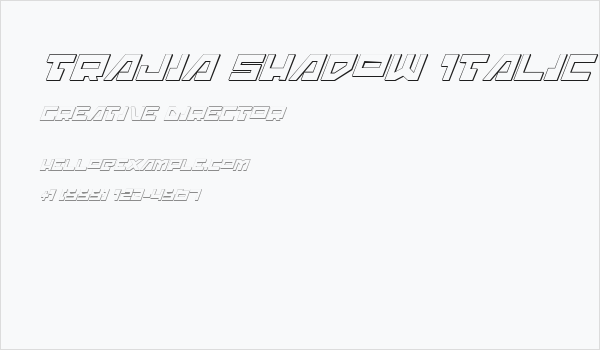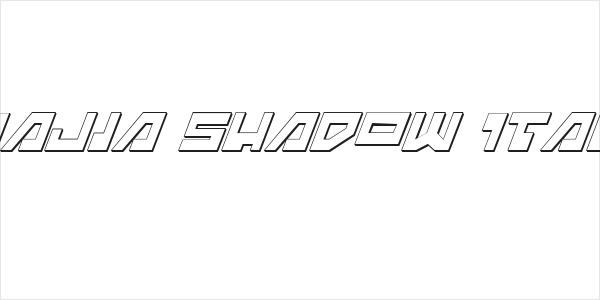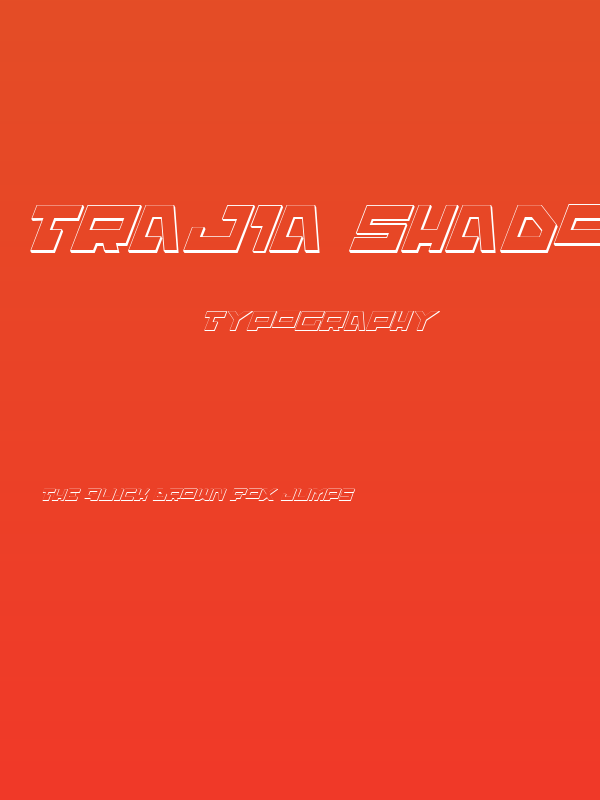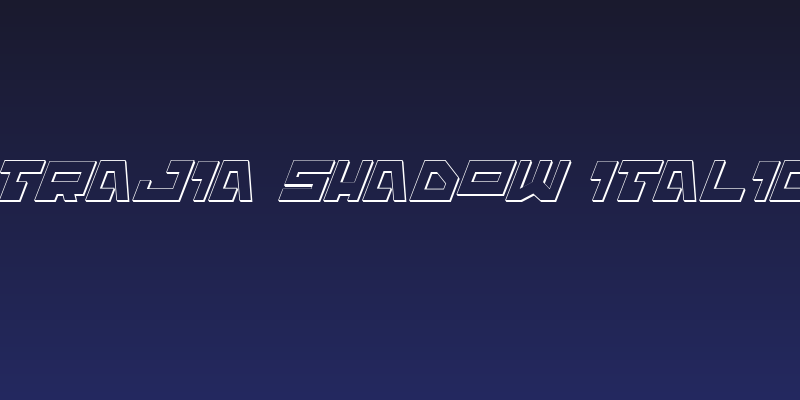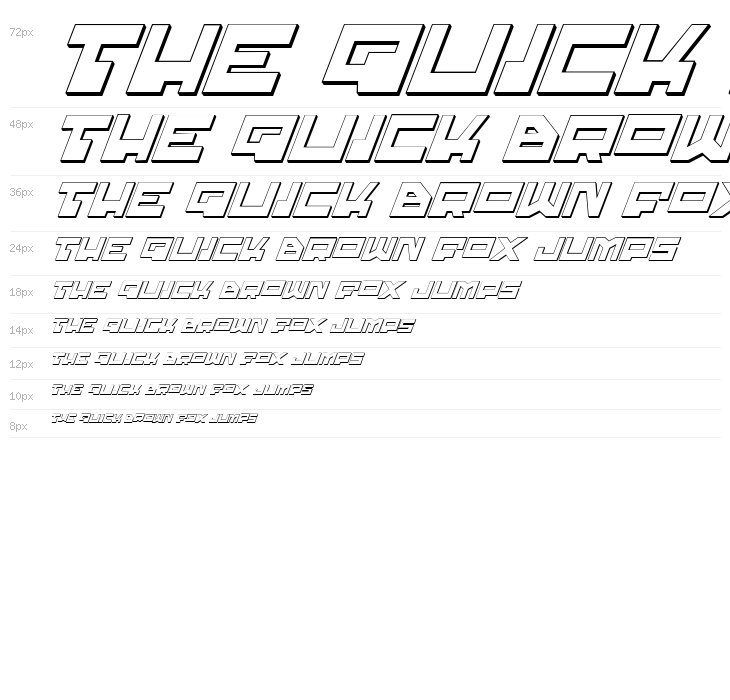
Trajia Shadow Italic Font
Trajia Shadow Italic Description
This font features a bold, geometric design with a distinct shadow effect, giving it a three-dimensional appearance. The characters are angular and sharp, with a futuristic and dynamic style. The italic slant adds a sense of motion and speed, making it ideal for projects that require a modern and edgy look. The uppercase and lowercase letters maintain a consistent style, while the numerals and special characters complement the overall design. The font's unique shadowing and angularity make it stand out, perfect for eye-catching headlines or logos.
| Proposed Projects | Ideal for sci-fi themed designs, tech company logos, video game titles, and dynamic posters. |